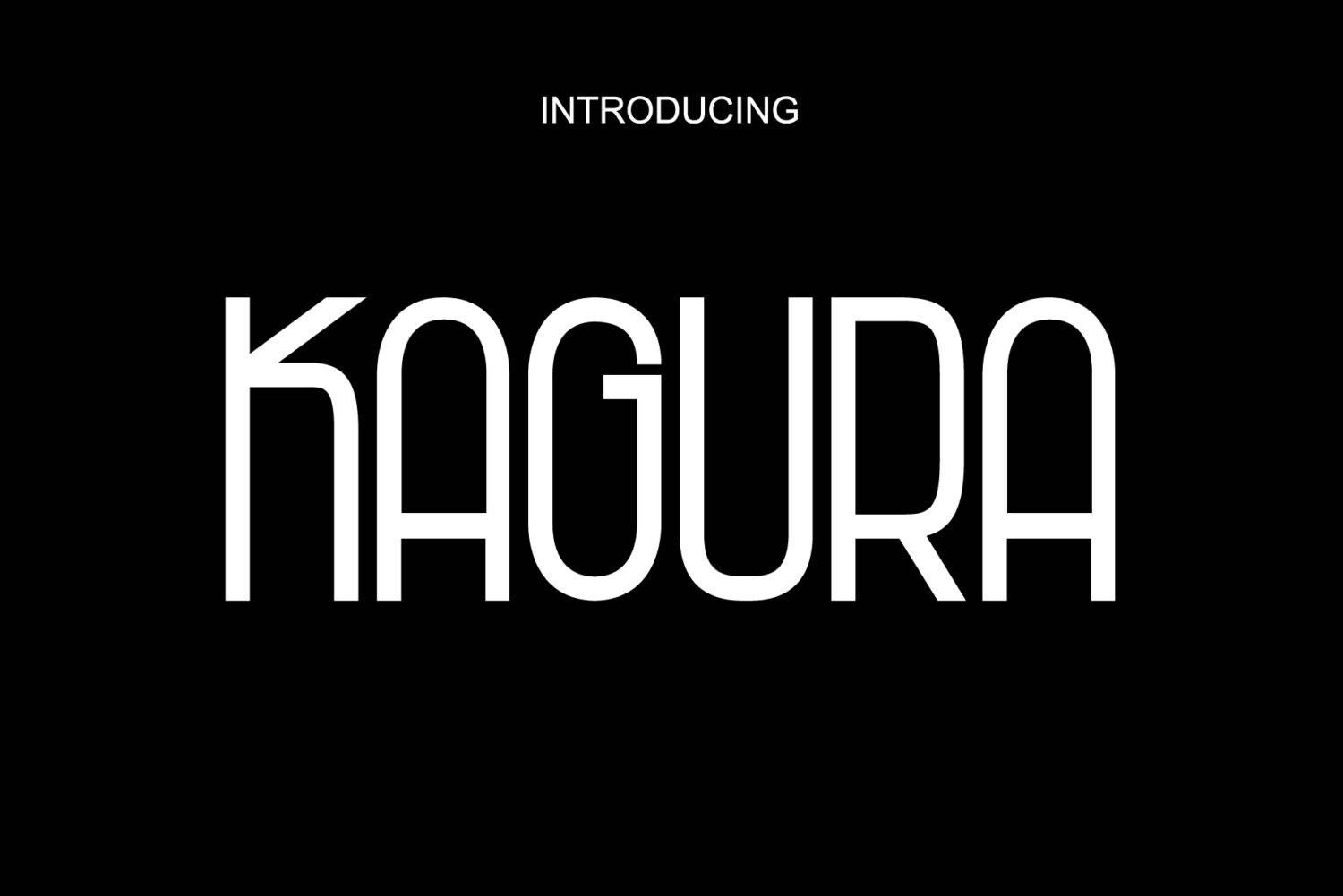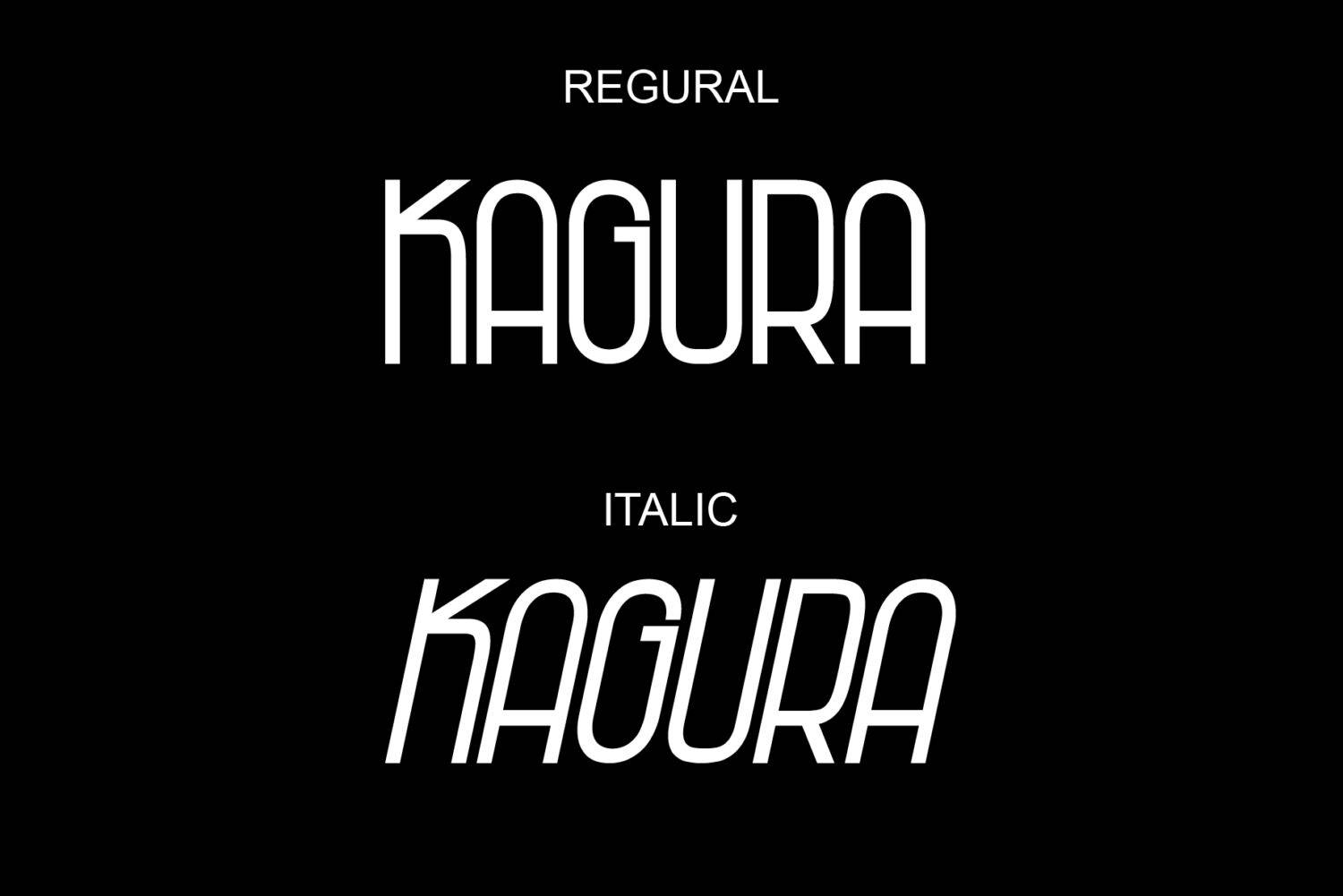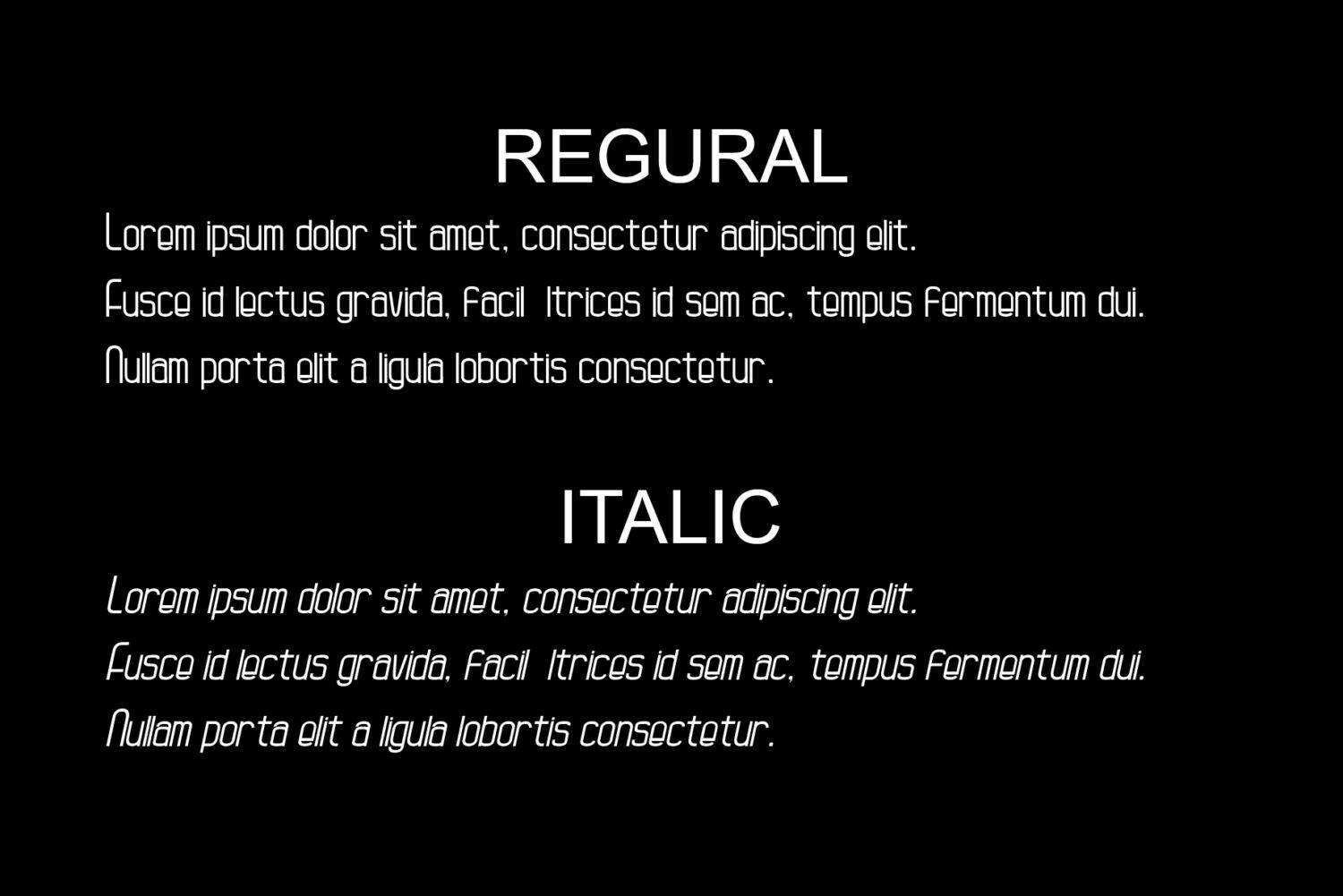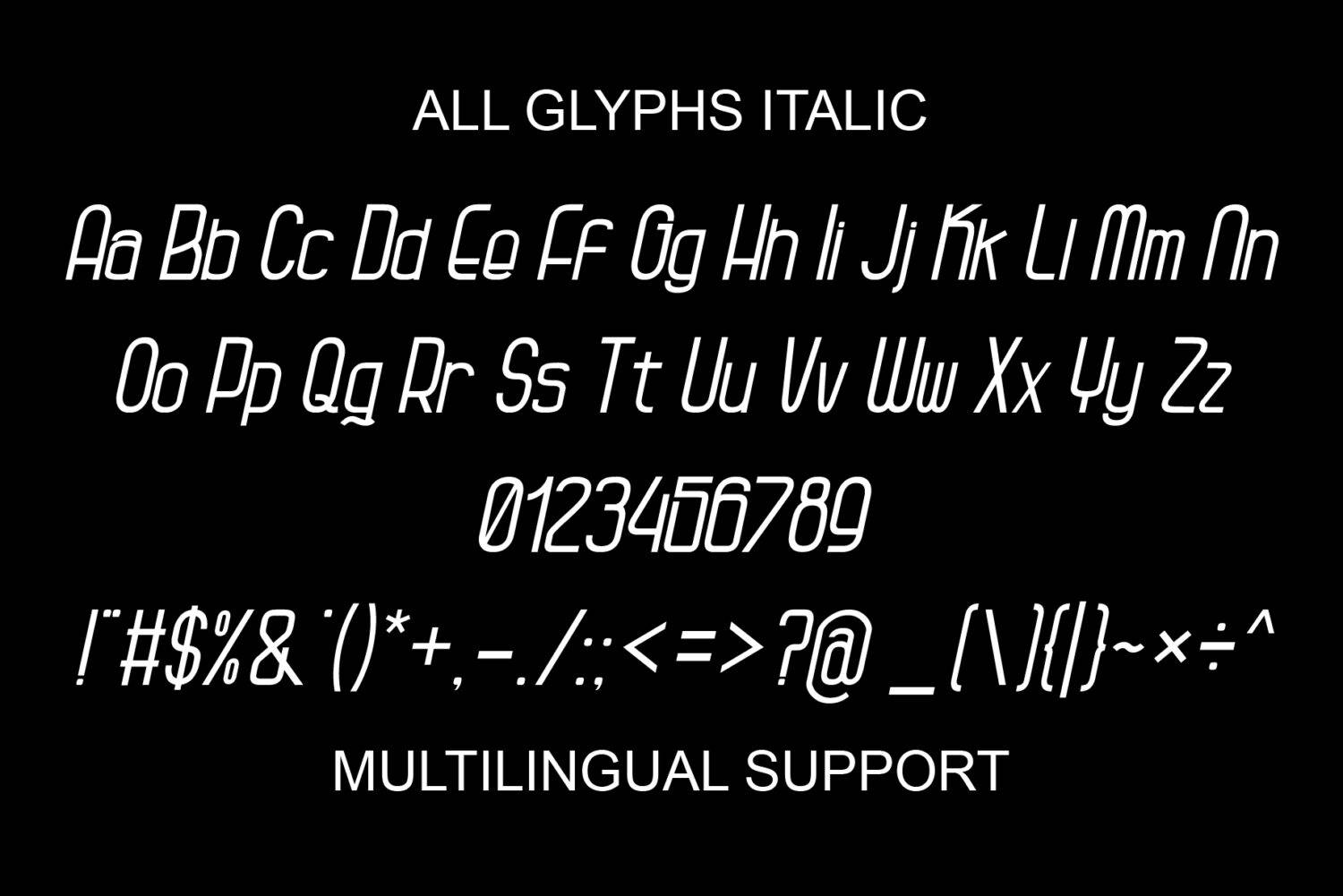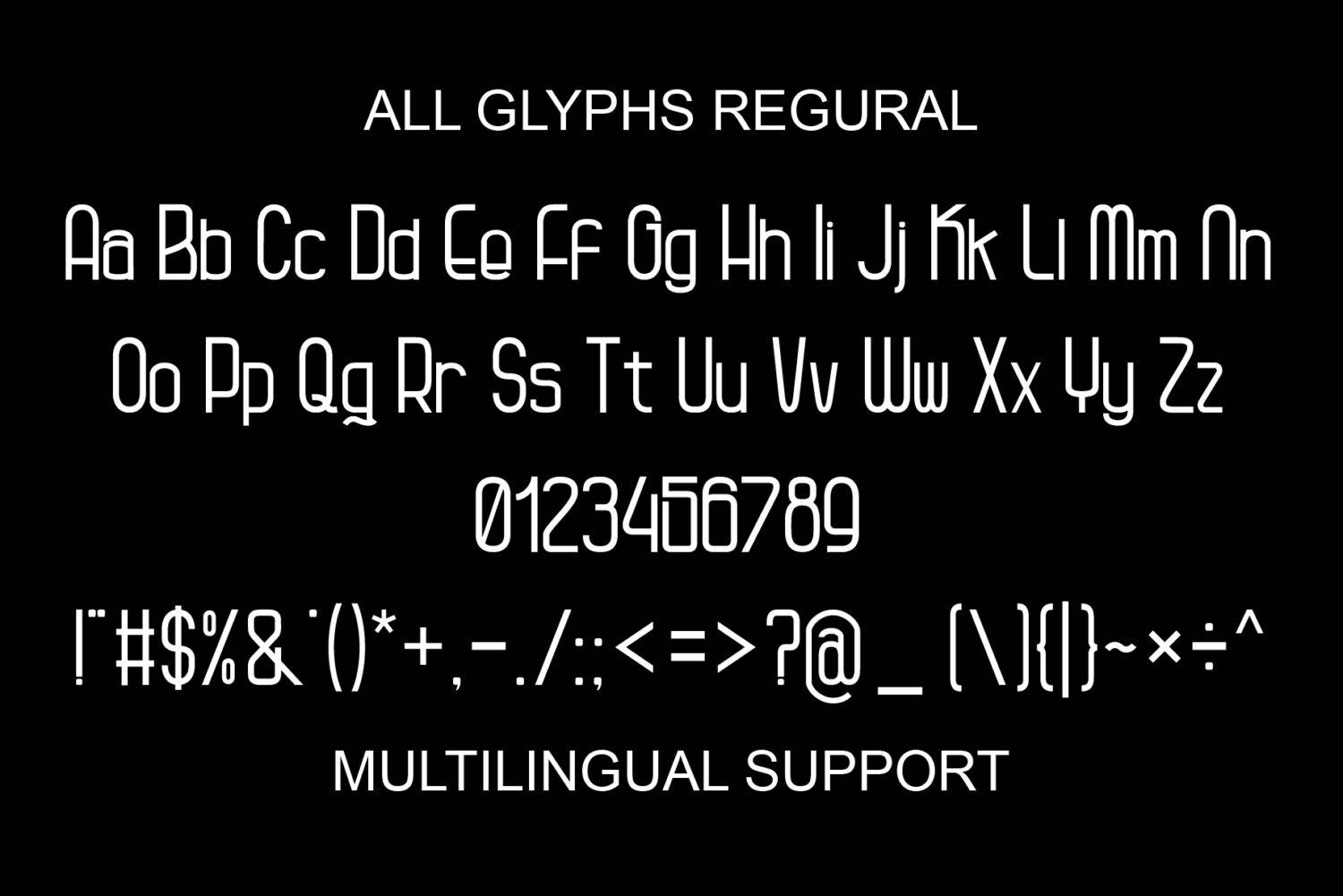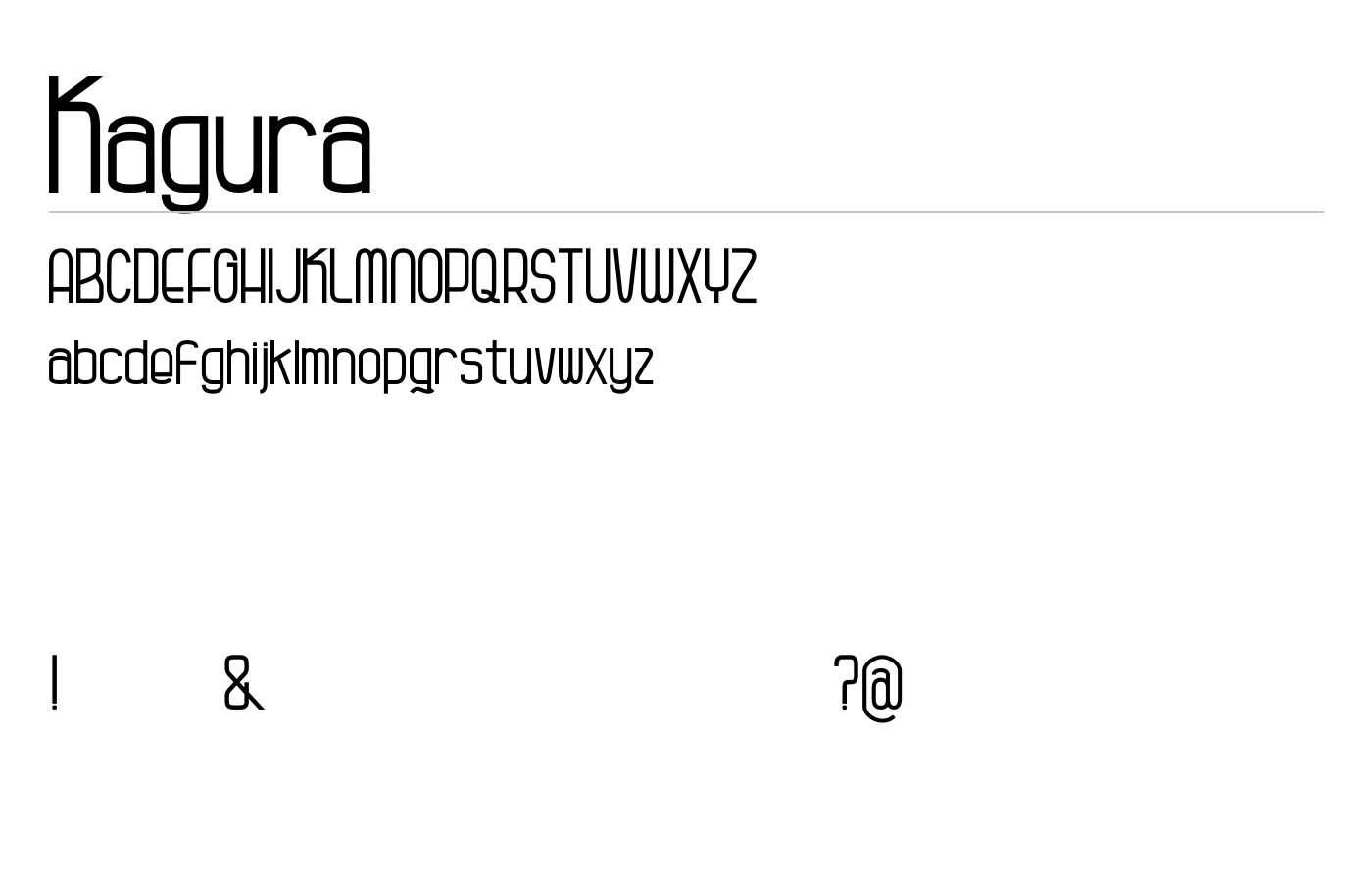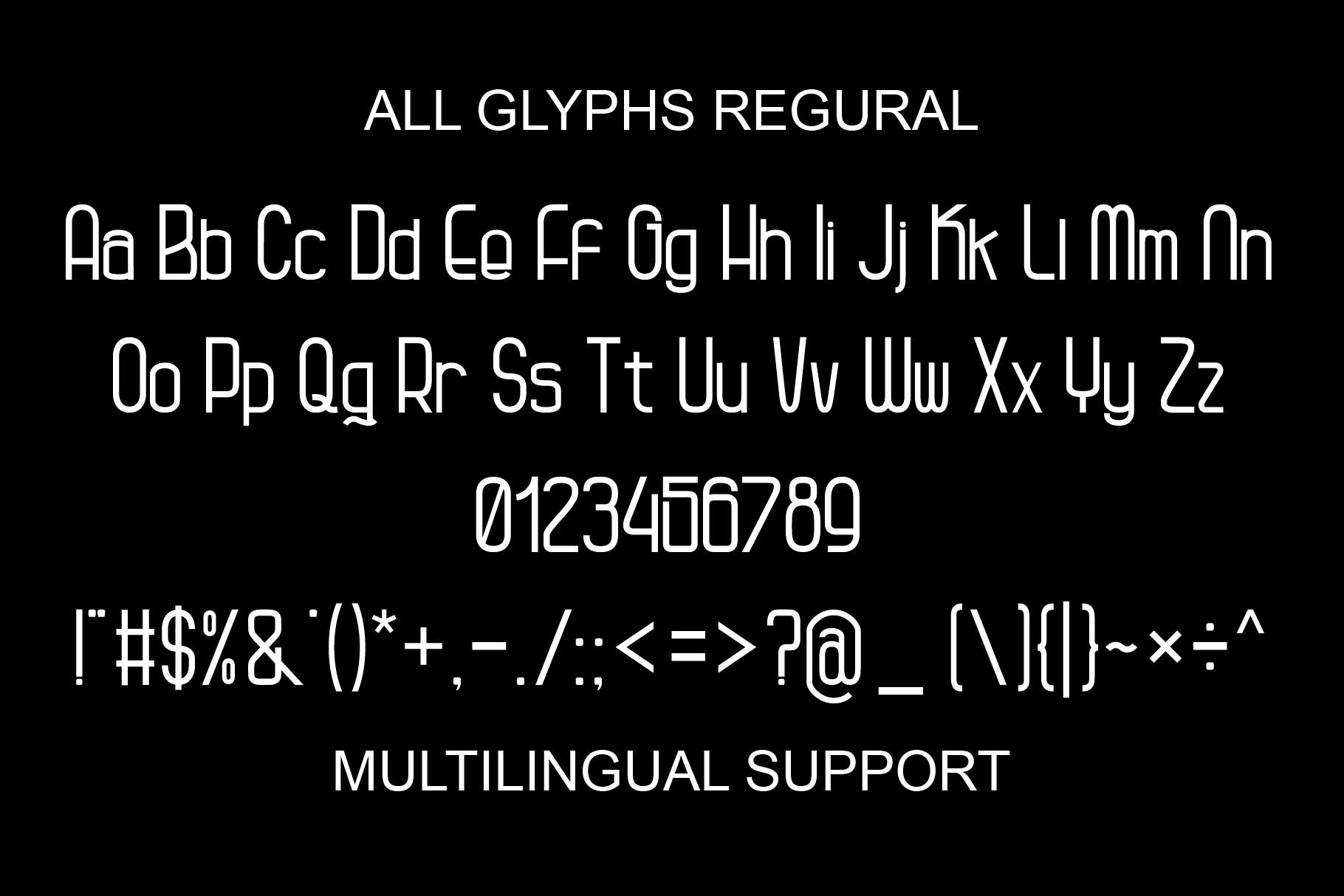
Kagura is a sleek, narrow sans serif font with a modern, minimalist vibe, characterized by its tall, condensed letterforms and fine, uniform strokes. Its clean, geometric shapes and consistent stroke weight give it a futuristic feel, making it ideal for contemporary branding, tech-oriented designs, and stylish editorial headlines where space efficiency and clarity are key. This font works best in digital and print settings that demand a sharp, sophisticated look without sacrificing readability.
Kagura
About Kagura
| Font family | Kagura |
| Release date | 2018-11-01 |
| Designer | Ef Studio 2018 |